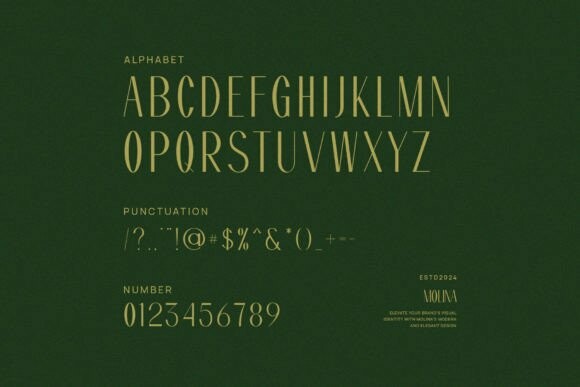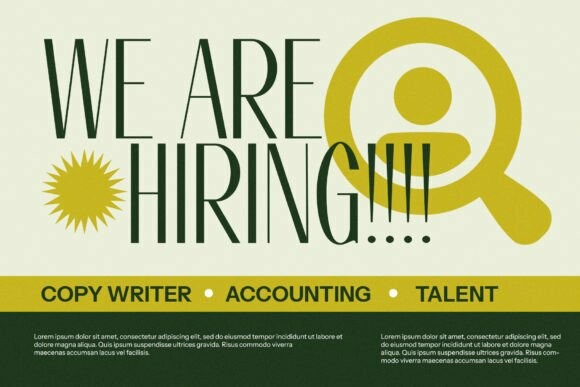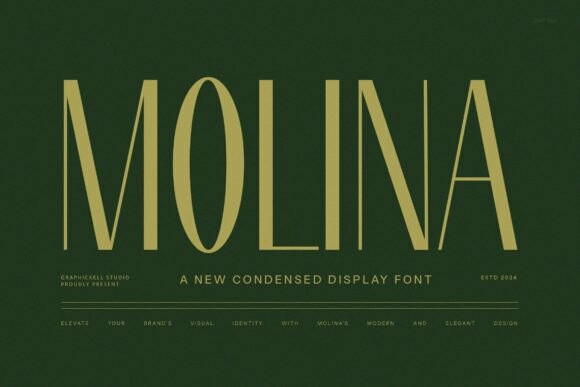
Molina Sans Font
Designer: Graphicxell
Molina Sans Font is a modern sans-serif typeface. Perfect for personalizing home decor items like cushions, photo frames, and wall hangings with a refined and contemporary look.